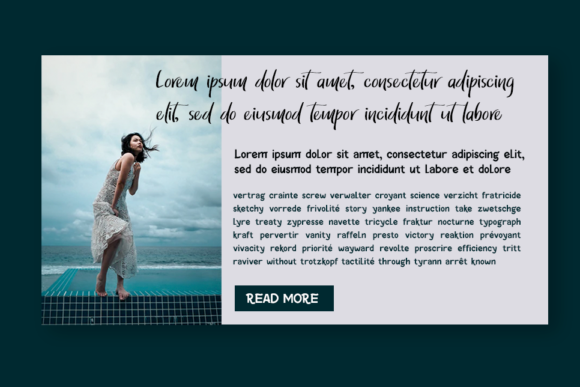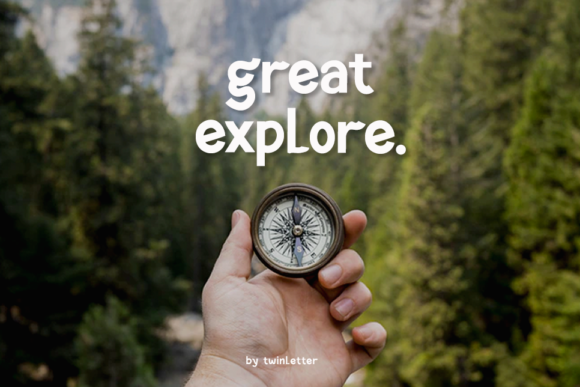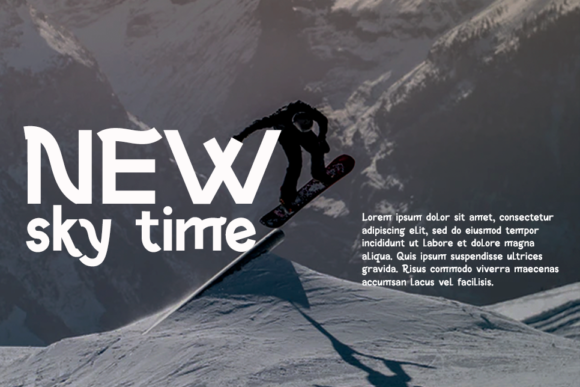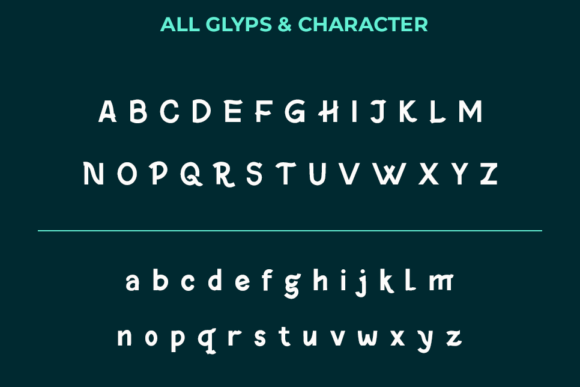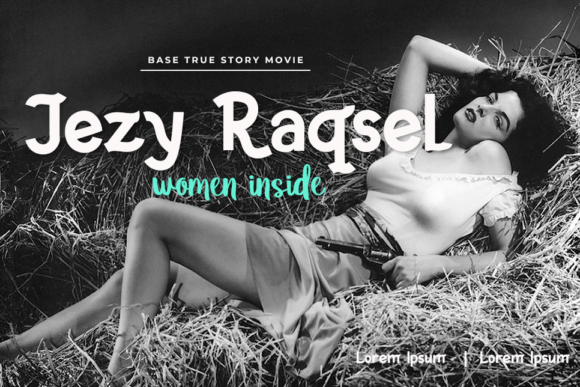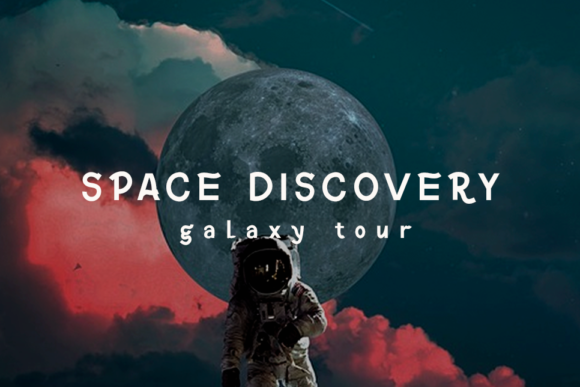
The Perfect Font to Hang Your Hat On
Have you ever been in the midst of a design project, staring at a blank screen, and suddenly, it hits you – the perfect font to elevate your entire concept? That’s exactly what happened to us when we discovered the Hanger Font. This bold, versatile sans serif font has the power to transform any design project into a masterpiece.
With Hanger Font, designers can take their work to the next level, creating stunning branding, headings, wedding designs, invitations, signatures, logos, labels, and more. Its balanced mix of smooth and sharp style makes it the perfect addition to any design need. Whether you’re a seasoned pro or just starting out, Hanger Font is a valuable tool that will help you achieve your creative vision with ease.
Hanger Font Key Features
- Font Family: Hanger is a sans-serif font family designed for display use, making it ideal for titles, headings, and other prominent text elements.
- Unique Characteristics: Hanger features a distinctive, geometric design with bold lines and rounded edges, making it highly legible at large sizes.
- Language Support: Hanger supports a wide range of languages, including Latin, Cyrillic, and Greek scripts, making it a versatile choice for multilingual designs.
Hanger Font Review
Hanger Font, a sans-serif typeface, has its moments where it truly shines ✨. The clean and modern design makes it suitable for a wide range of applications, from digital interfaces to print materials. The font’s x-height is well-balanced, making it easy to read even in smaller font sizes.
- The font’s openness and airiness give it a friendly and approachable feel ✨.
- Hanger Font is highly legible, even at low resolutions ✨.
- The font’s weight range is versatile, making it suitable for headings and body text alike ✨.
However, Hanger Font is not without its limitations ⚠️. The font’s design may not be as unique as some other typefaces on the market, and its simplicity might make it feel a bit bland in certain contexts. Additionally, the font’s italic and oblique styles could be more refined ⚠️.
Overall, Hanger Font is a solid choice for projects where a clean and modern sans-serif is required. While it may not be the most exciting or unique typeface, it gets the job done and is easy to work with.
Getting the Most Out of Hanger Font
For best results, use Hanger Font with bold or italic styles to add emphasis. You can also experiment with different font sizes and combinations to achieve a unique look.
Hanger Font is ideal for creative projects, such as:
- Graphic design
- Logo design
- Typography-based art
- Marketing materials
Alternatives to Hanger Font
Great Vibes is a modern, handwritten font perfect for creating a friendly and approachable atmosphere. It’s ideal for use in invitations, social media posts, and advertising materials. Compared to Hanger Font, Great Vibes has a more casual and relaxed feel, making it suitable for a wide range of applications.
Similarity: Both fonts have a handwritten feel, but Hanger Font is more geometric and sleek. Great Vibes is more expressive and varied in its letterforms.
Alex Brush is a elegant, script font that’s perfect for creating a sophisticated and high-end look. It’s ideal for use in luxury branding, advertising materials, and wedding invitations. Compared to Hanger Font, Alex Brush is more refined and polished, making it suitable for applications where a high level of sophistication is required.
Similarity: Both fonts have a handwritten feel, but Alex Brush is more refined and elegant. Hanger Font is more geometric and modern.